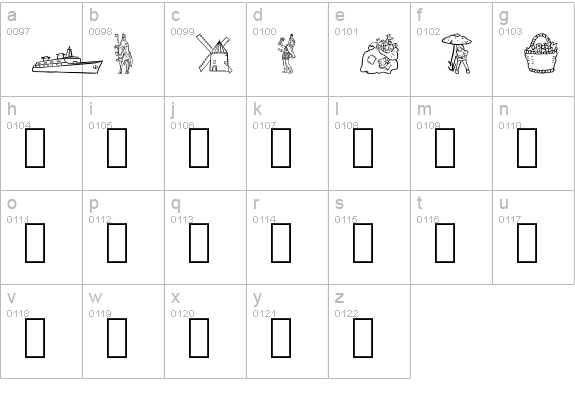
Santa Klaus' House Font Details
Introducing the enchanting Santa Klaus' House font, a whimsical and festive typeface that will transport you straight into the heart of the holiday season. This font captures the joy and magic of Santa's workshop, with its playful curves and delicate details. Santa Klaus' House font is the perfect companion for any Christmas-themed project, whether it's greeting cards, invitations, or even banners for holiday events. Its unique design exudes warmth and cheer, instantly evoking feelings of nostalgia and excitement. But the best part? Santa Klaus' House font is completely free! Yes, you heard that right. This delightful typeface is freely available to download at FontsMarket.com, making it accessible to everyone who wishes to add a touch of festive charm to their designs. With Santa Klaus' House font, you can create stunning visuals that will bring the spirit of Christmas to life. Its versatility allows you to experiment with different sizes, colors, and compositions, ensuring that your messages stand out and captivate your audience. So why wait? Embrace the holiday spirit and infuse your designs with the magic of Santa Klaus' House font. Download it for free at FontsMarket.com and let your creativity soar this Christmas season. Spread joy and enchantment with every letter, and watch as your designs become a true celebration of all things merry and bright.